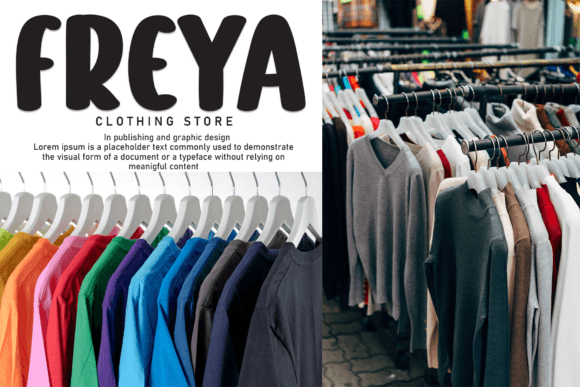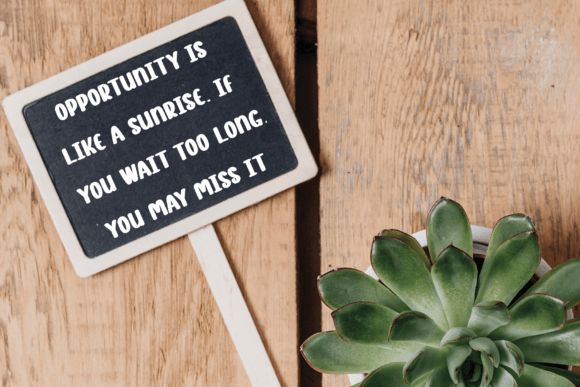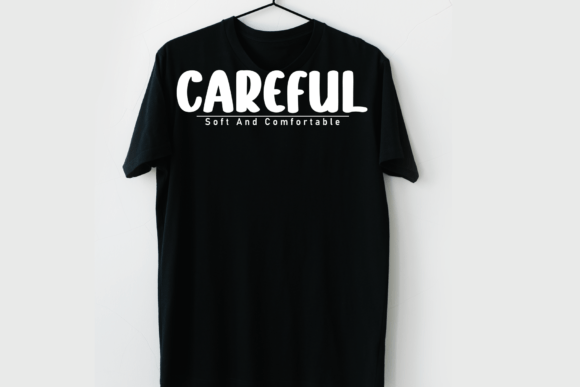
Introduction to Home Rabbit Font
Do you remember that moment when you’re working on a creative project and you just can’t find the right font to give it that extra touch? You’ve spent hours browsing through design resources, but nothing seems to capture the essence of your idea. For designers like you, finding the perfect font can be a game-changer.
That’s where the Home Rabbit Font comes in – a sweet and friendly handwritten font that’s sure to add a lovely touch to any design. With its fresh and casual vibe, it’s perfect for writing wedding invitations, cards, or any other creative project that needs a high-quality design resource.
Key Features of Home Rabbit Font
- High-quality design resource with a transparent background, ideal for creative projects.
- Includes a comprehensive character set, ensuring that users have access to a wide range of glyphs and symbols.
- Designed with a modern aesthetic, the Home Rabbit Font is perfect for contemporary design projects, from logos to brochures.
- Features a high resolution of 300 DPI, ensuring that the font remains crisp and clear when scaled up or down.
Honest Review: Home Rabbit Font
I recently had the chance to play around with the Home Rabbit Font, and I must say it’s a great addition to any design resource collection. This free download is perfect for creative projects that need a touch of whimsy.
What works well: ✨ The font’s transparency background feature allows for seamless integration with images and backgrounds, giving you endless possibilities for creative compositions. The font’s modern and cute design is also perfect for projects targeting a younger audience. I also appreciate the high quality of the font, making it ideal for both digital and print designs.
What doesn’t work so well: ⚠️ One thing to keep in mind is that the font is a bit limited in terms of its character set, which might not be ideal for more complex projects that require a wide range of characters.
Overall, I’m quite impressed with the Home Rabbit Font. It’s a great free resource for designers, and I can see it being used in a variety of creative projects. If you’re looking for a fun and modern font for your next design, I’d definitely recommend giving it a try.